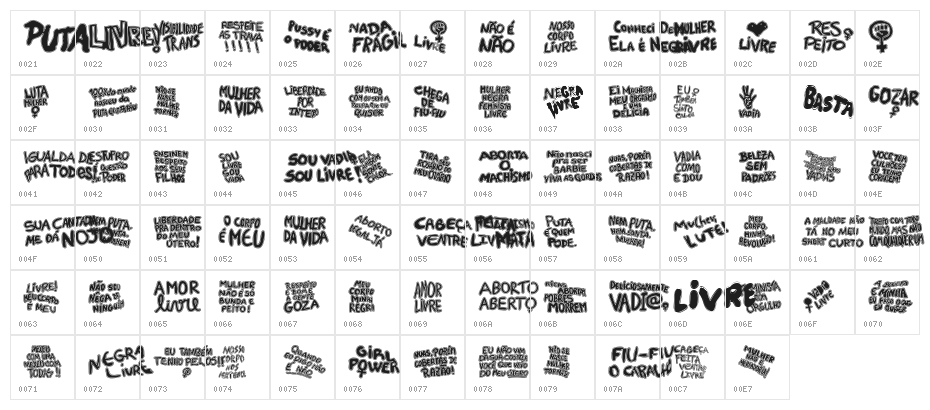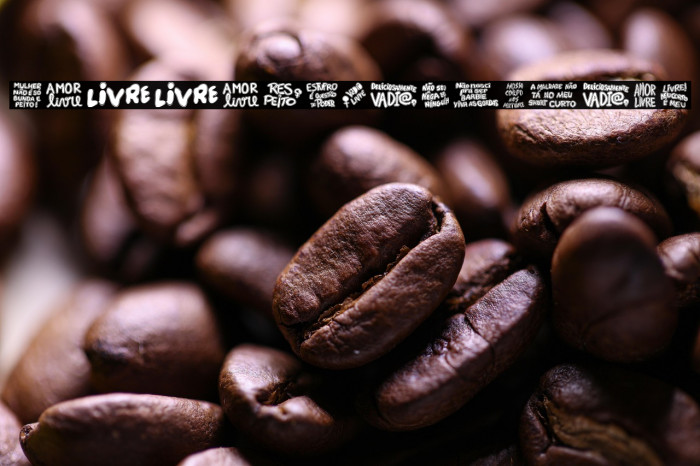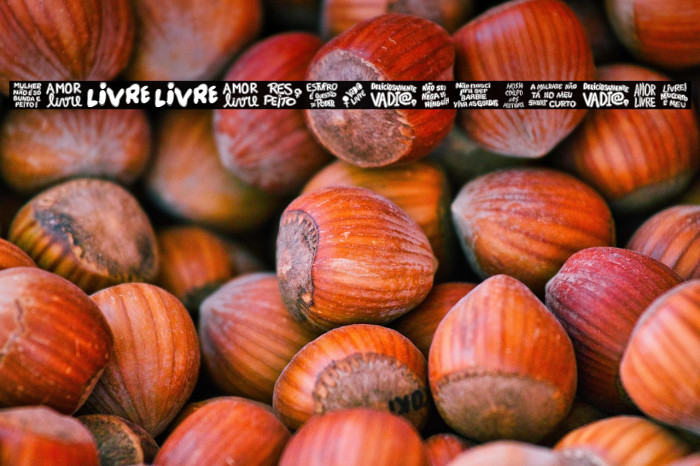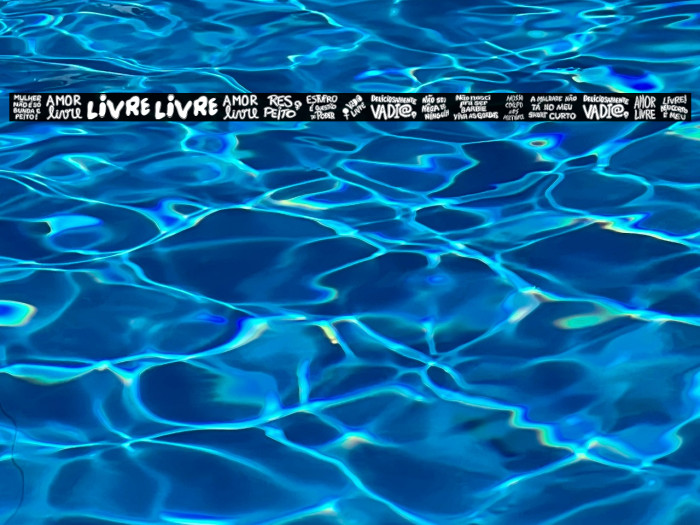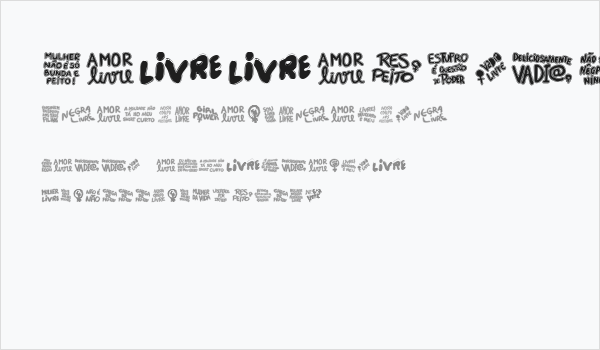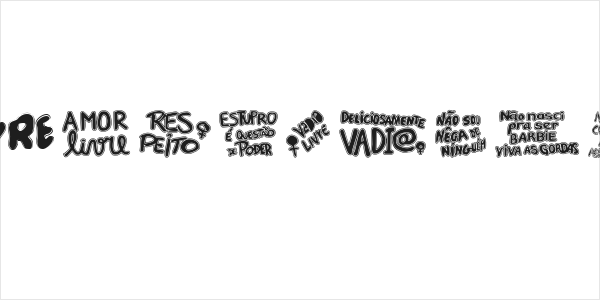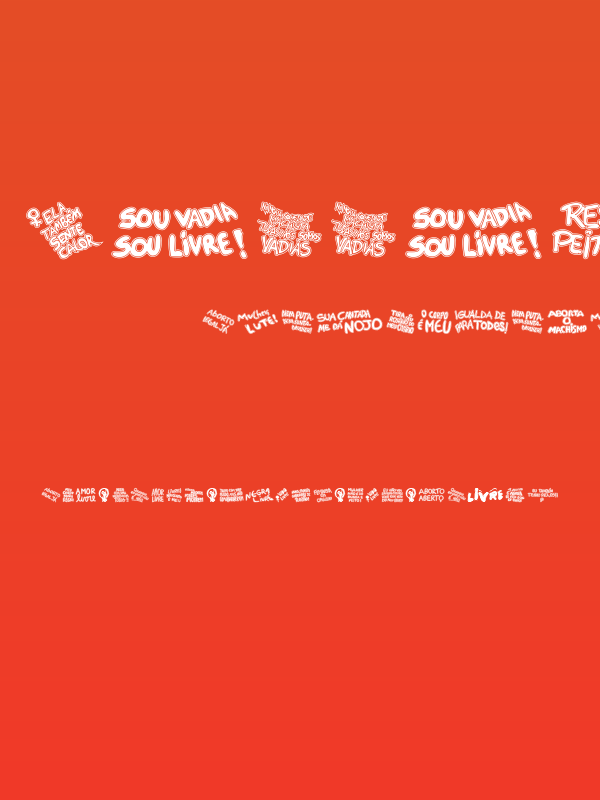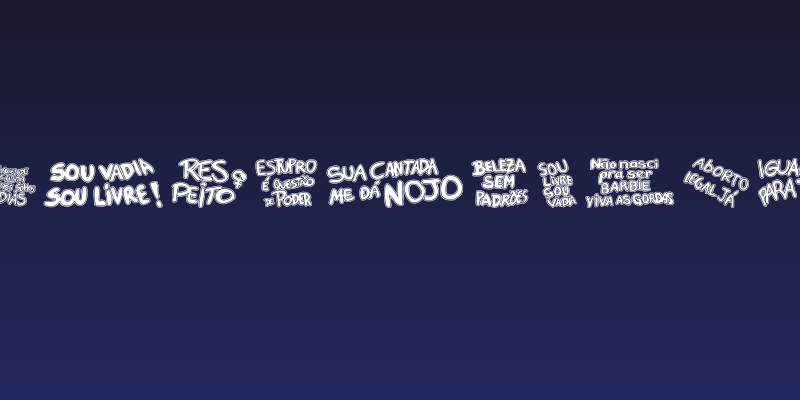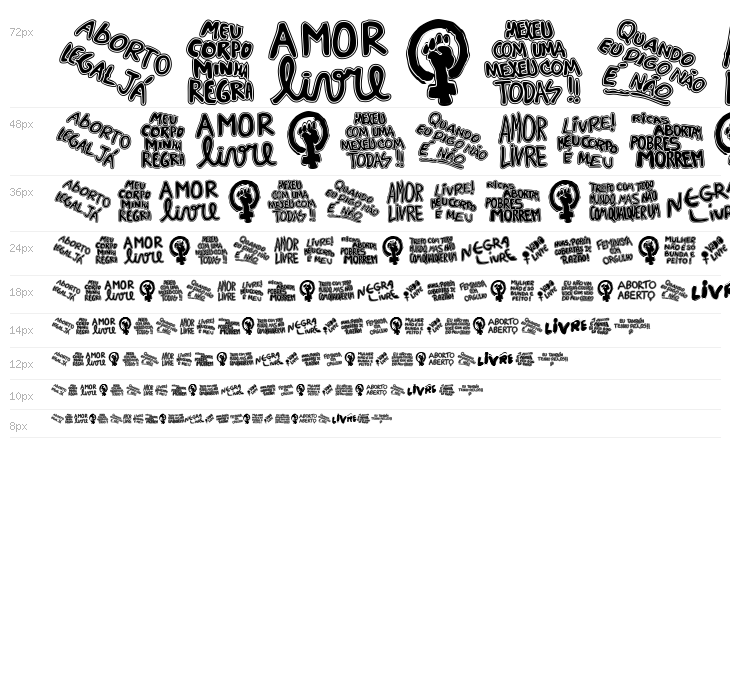
femme-BoldItalic Font
This font features a bold and italicized style with a highly expressive and dynamic appearance. The characters are designed with a playful and rebellious flair, showcasing irregular shapes and varying sizes that create a sense of movement and energy. The strokes are thick and bold, contributing to a strong visual impact. The font's unique style is characterized by its hand-drawn aesthetic, which adds a personal and informal touch. The letters are closely spaced, enhancing the compact and dense look of the text. This font is ideal for making bold statements and capturing attention with its unconventional and artistic design.
Overall StyleModern, Artistic
Use CaseHeadlines, Posters, Artistic Designs
Proposed ProjectsIdeal for posters, protest signs, artistic projects, and any design requiring a bold, expressive typeface.